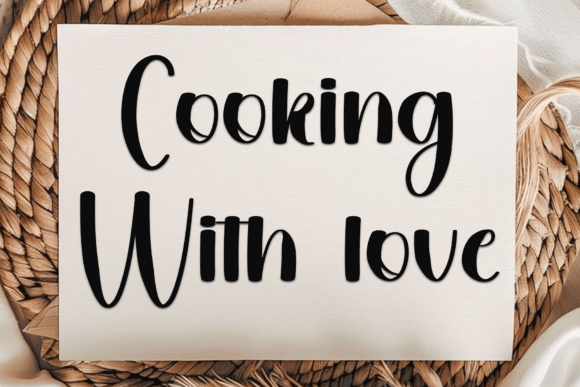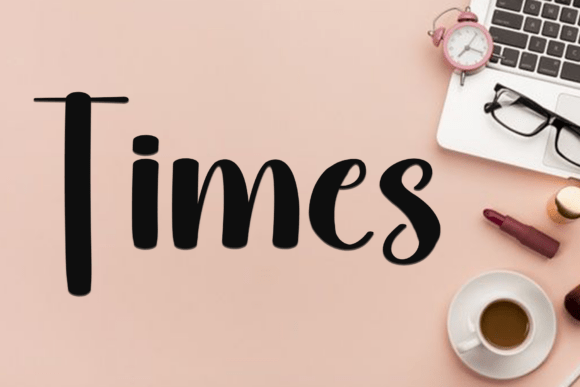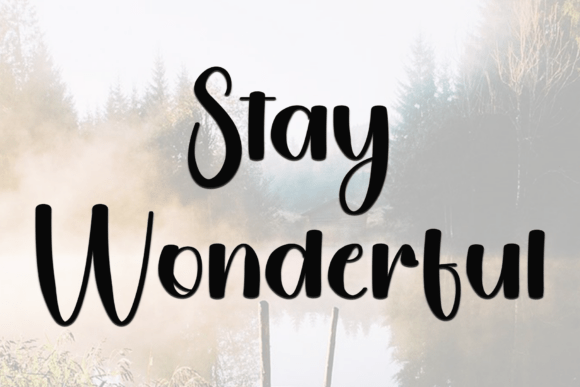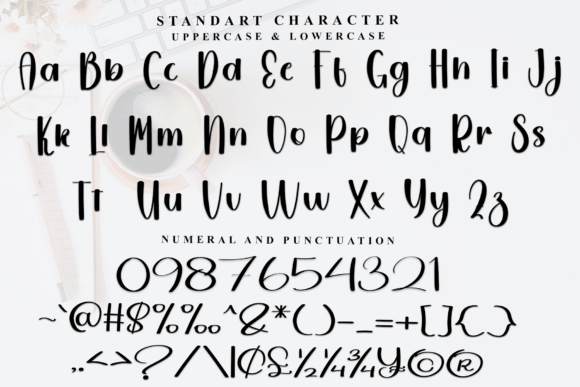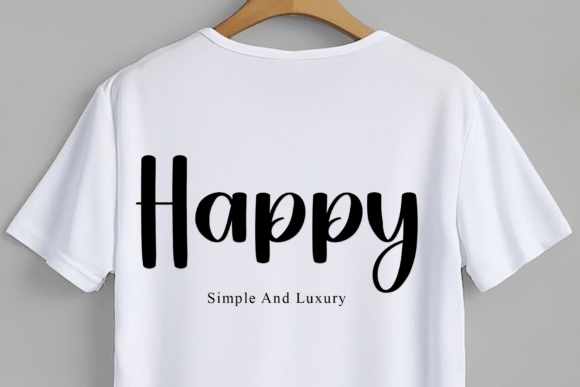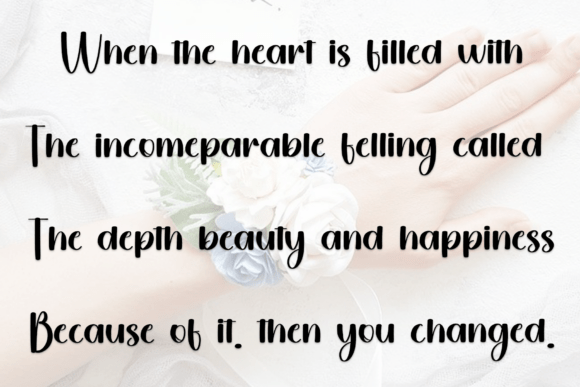
Introducing Goldenboy Font: The Ultimate Holiday Typeface
The holiday season is upon us, and what better way to get into the spirit than with a festive and merry typeface? Look no further than Goldenboy Font, a decorative font that captures the essence of the holiday season with its whimsical flair and enchanting charm. In this article, we’ll dive into the world of Goldenboy Font, exploring its features, uses, and benefits for designers and crafters alike.
Goldenboy Font is a beautifully crafted typeface that embodies the joy and magic of the holiday season. Its decorative elements, including intricate swirls and flourishes, add a touch of elegance and sophistication to any design. Whether you’re creating greeting cards, gift tags, or holiday-themed projects, Goldenboy Font is the perfect choice to bring a cheerful and nostalgic ambiance to your words.
Goldenboy Font is specifically designed with the holiday season in mind. Its whimsical and festive design makes it ideal for a variety of projects, including:
- Greeting cards: Create personalized and unique holiday cards that will stand out from the crowd.
- Gift tags: Add a touch of elegance and sophistication to your gift tags with Goldenboy Font.
- Holiday-themed projects: From invitations to party decorations, Goldenboy Font is the perfect choice for any holiday project.
One of the standout features of Goldenboy Font is its PUA (Private Use Area) encoding. This means that you can access all of the amazing glyphs and ligatures with ease, giving you complete creative control over your designs. With Goldenboy Font, you can:
- Access a wide range of glyphs and ligatures to add visual interest to your designs.
- Easily customize your text with a variety of swashes, flourishes, and other decorative elements.
- Create unique and personalized designs that reflect your style and creativity.
Goldenboy Font offers a range of benefits for designers and crafters, including:
- Ease of use: With its PUA encoding, Goldenboy Font is easy to use and access, even for those with limited design experience.
- Versatility: Goldenboy Font can be used for a wide range of projects, from digital designs to print materials.
- Unique designs: With its wide range of glyphs and ligatures, Goldenboy Font allows you to create unique and personalized designs that stand out from the crowd.
- Time-saving: Goldenboy Font saves you time and effort, allowing you to focus on the creative aspects of your design.
Tips and Tricks for Using Goldenboy Font
To get the most out of Goldenboy Font, here are a few tips and tricks to keep in mind:
- Experiment with different sizes and colors: Goldenboy Font looks great in a variety of sizes and colors, so don’t be afraid to experiment and find the perfect combination for your design.
- Mix and match glyphs and ligatures: With its wide range of glyphs and ligatures, Goldenboy Font allows you to create unique and personalized designs by mixing and matching different elements.
- Use it with other fonts: Goldenboy Font pairs well with a variety of other fonts, so feel free to experiment with different combinations to find the perfect look for your design.